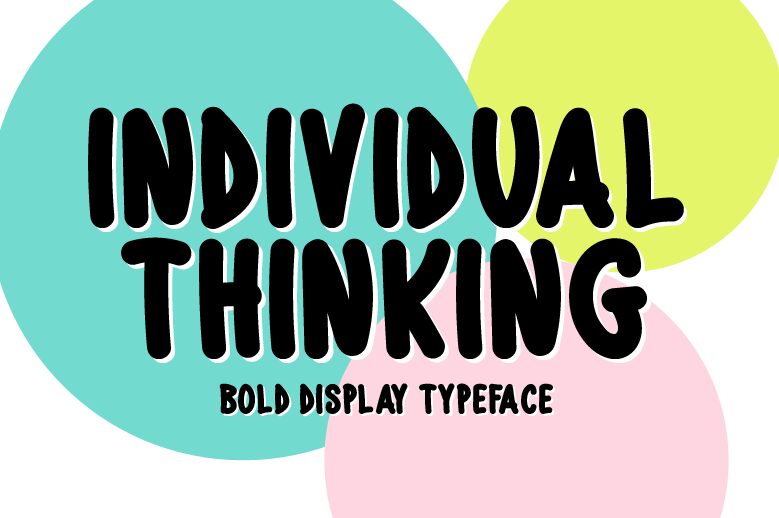
Individual Thinking is a bold, condensed handwritten font designed by Md Shohail Bhuian. With its unique style, this font is perfect for projects that require a touch of creativity and personality.
Its bold weight and condensed width make it suitable for eye-catching headlines, logos, and branding materials. Whether you're designing posters, packaging, or social media graphics, Individual Thinking adds a distinctive and expressive flair to your creative endeavors.
Let this font unleash your individuality and captivate your audience with its artistic charm.